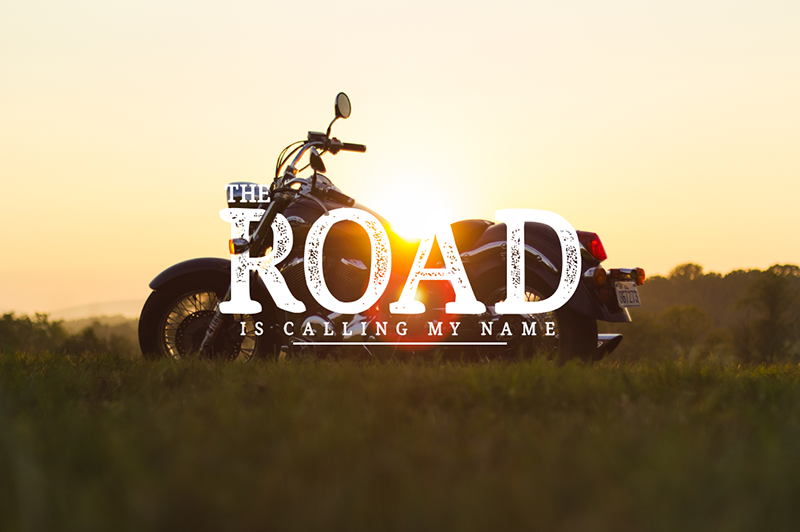
Preview and download Endurest Font. Created by The Branded Quotes in Fancy Eroded styles with Free for personal use license.
Personal Use Only. For commercial use, please purchase: https://thebrandedquotes.sellfy.store/p/Cz6o/ About this font: Built to withstand the challenge of trends and time. Inspired from the graphing technique of the late Sir Raymond DaBoll but with markers, acrylics and digital touches to create balance among heights and spacing. Call it modern vintage. Changing the size and kerning were made automatic for a perfect combination. Features: Capitals, Numerals and Punctuation. |